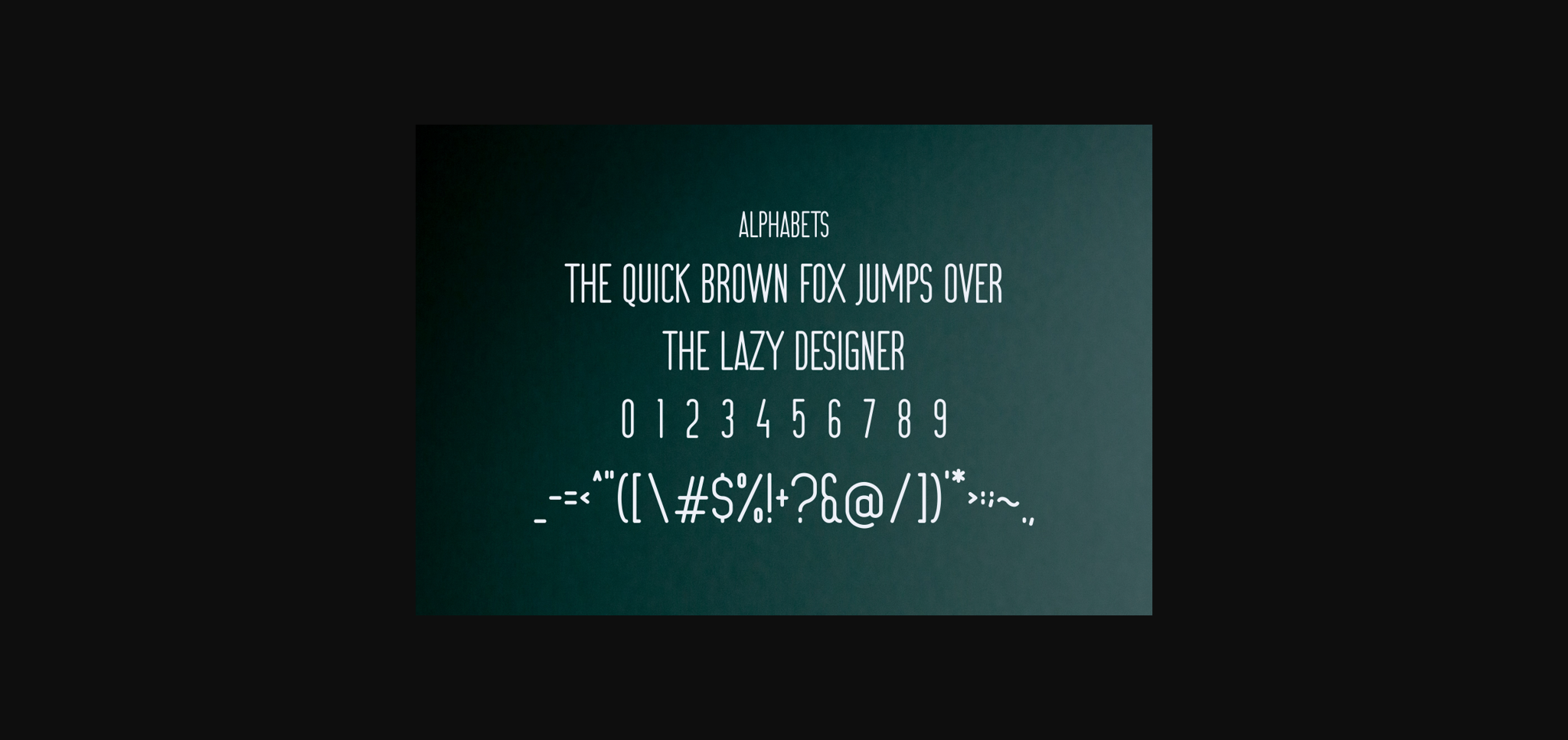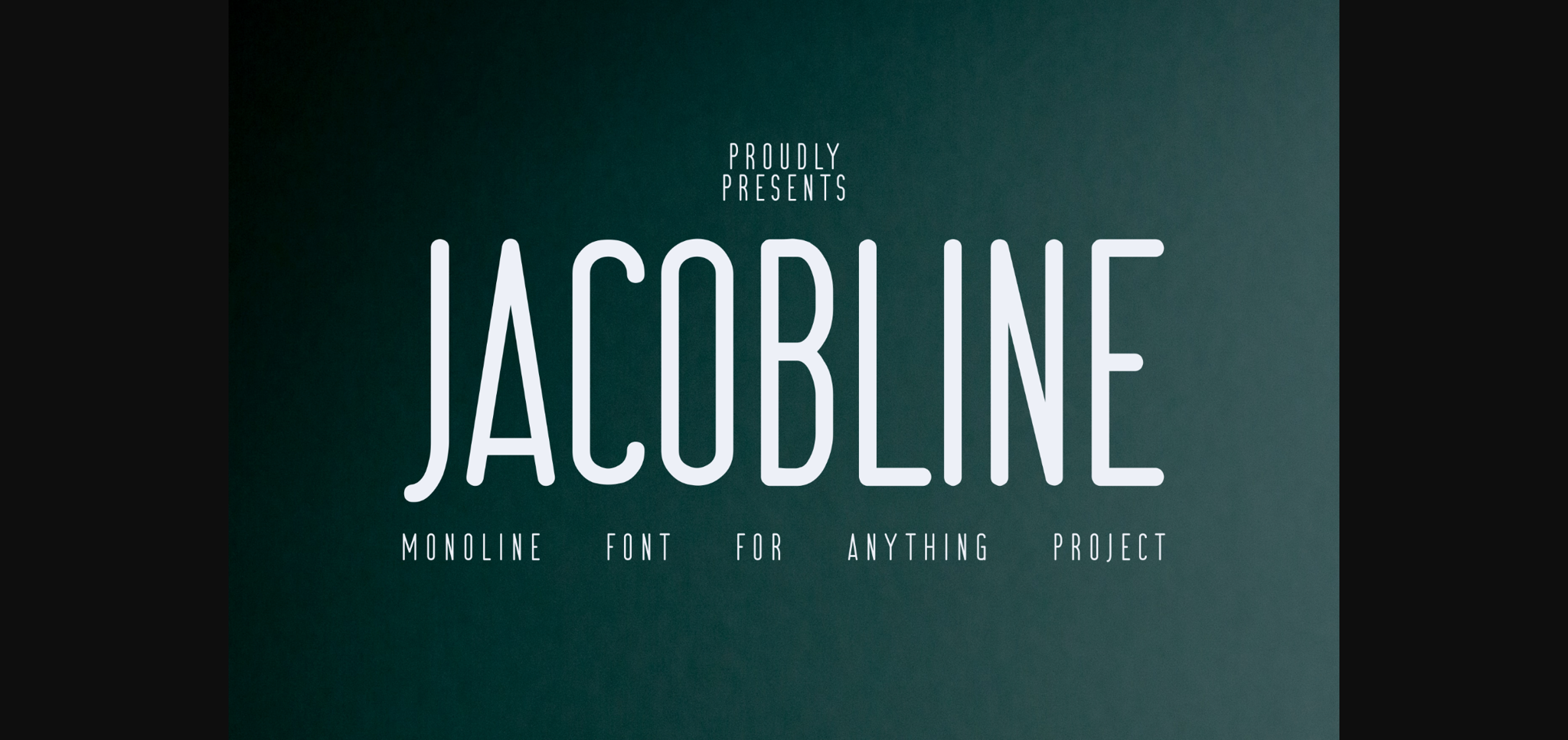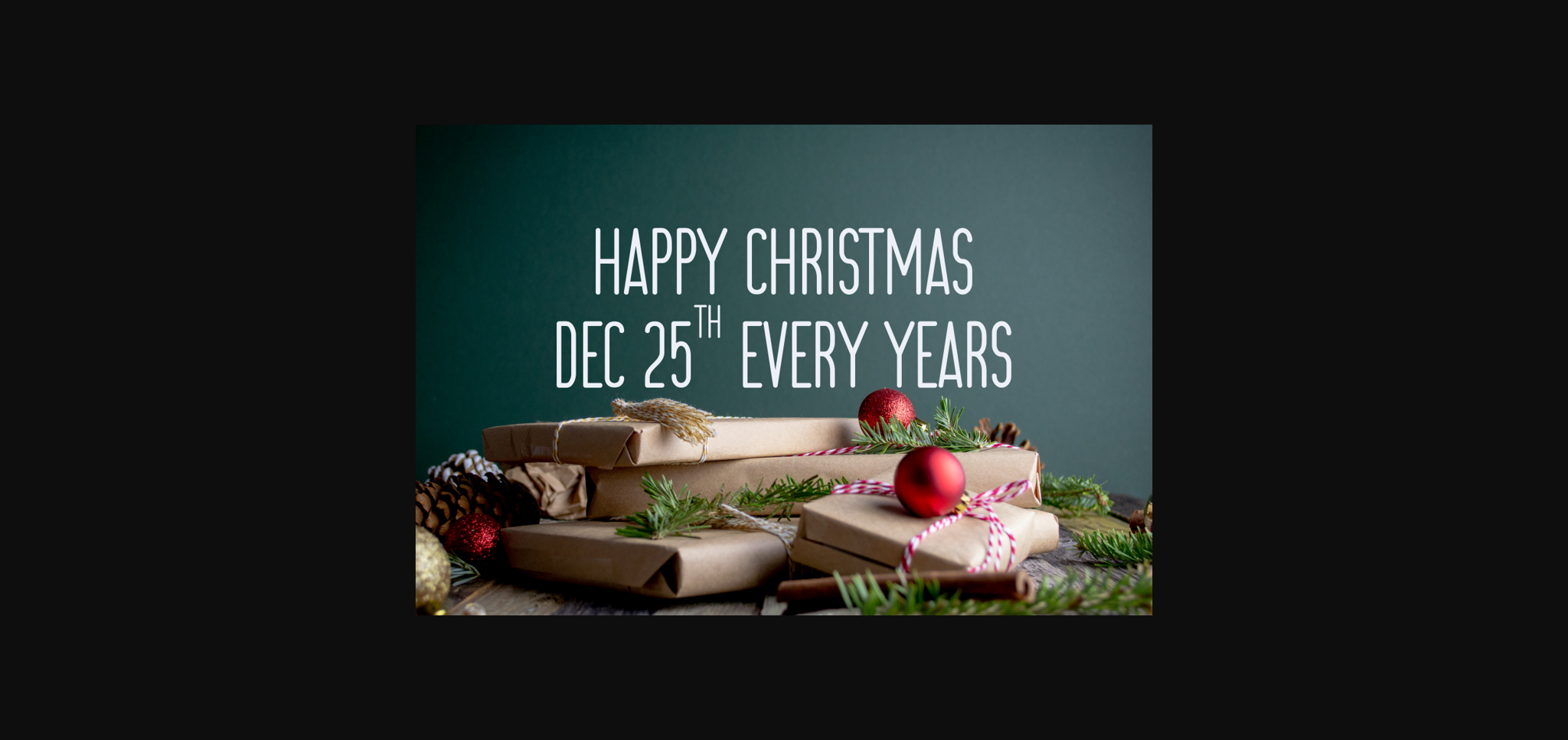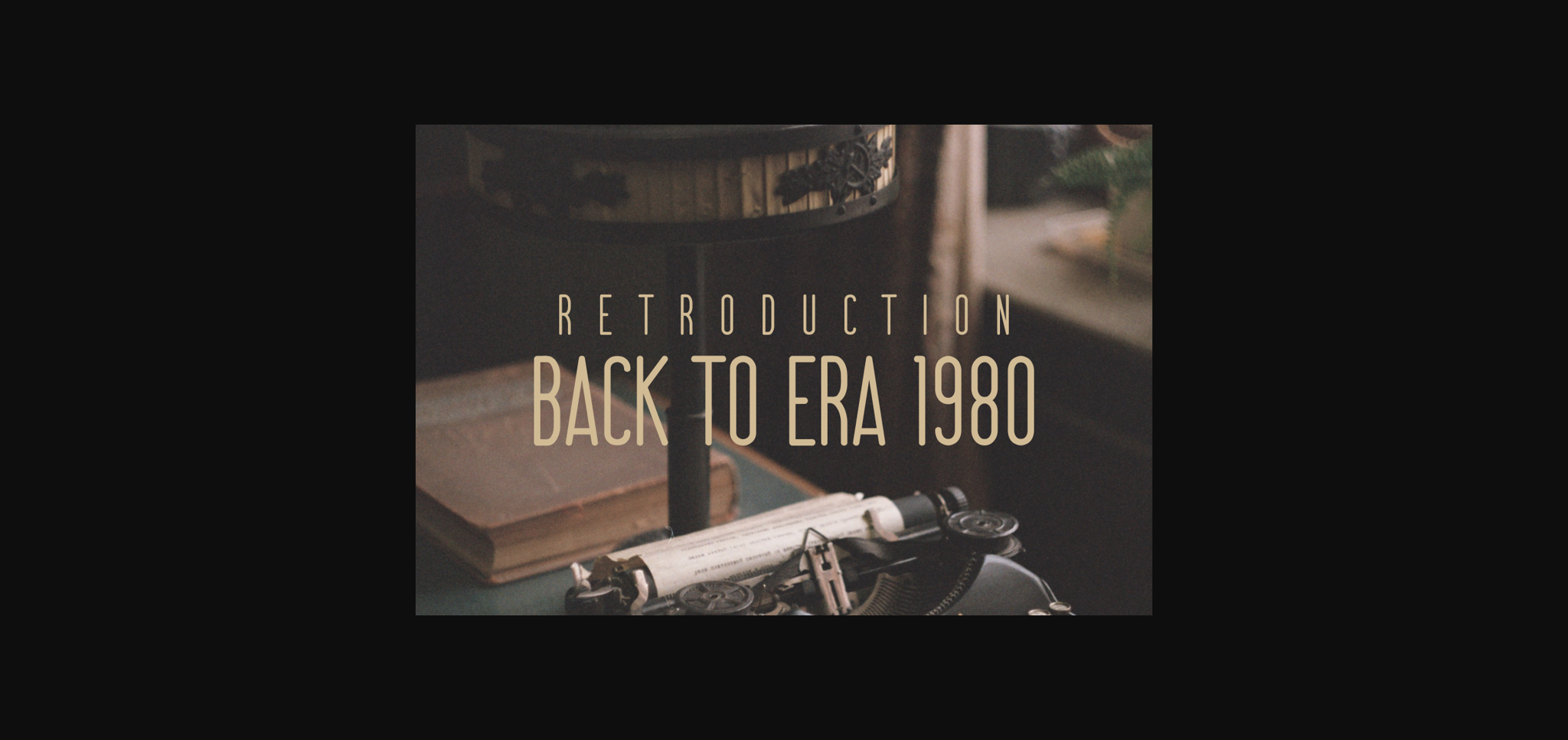
Jacobline Font
About Jacobline Font
Jacobline is a modern and stylish sans serif font. Its natural and unique style makes it incredibly fitting to a large pool of designs. The only limit is your imagination!